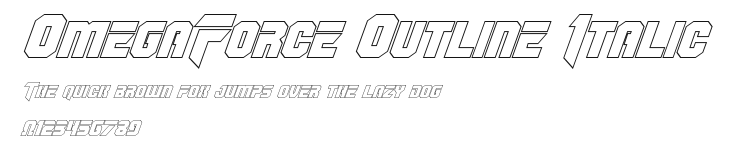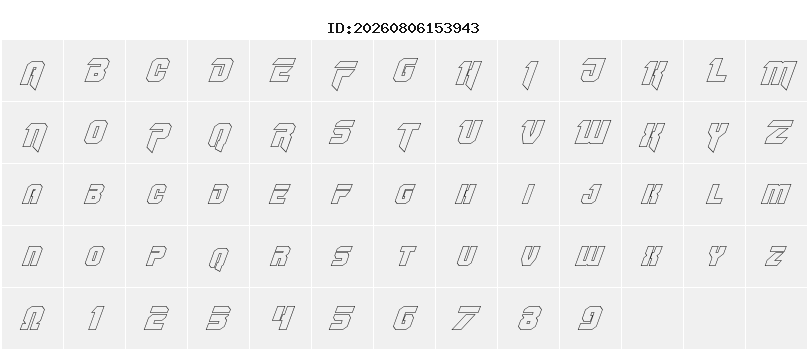
OmegaForce Outline Italic Preview
• Font Name: OmegaForce Outline Italic
• Full Font Name: OmegaForce Outline Italic
About OmegaForce Outline Italic.ttf
OmegaForce Outline Italic.ttf is a modern, elegant sans-serif font designed for ultimate readability and visual harmony. Perfect for branding, headlines, web design, and print materials.